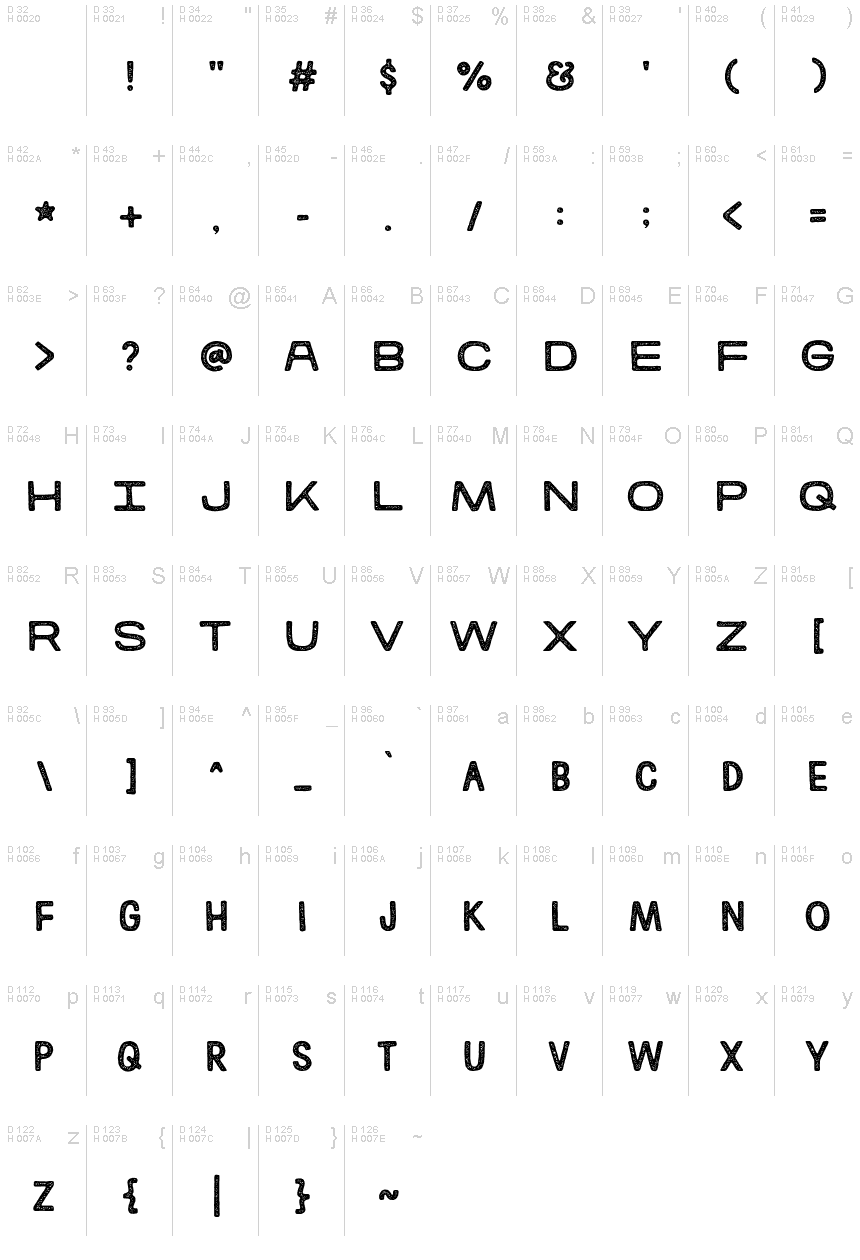
kitestrings stamp Regular
Kitestrings Stamp by Brittney Murphy Design is a display font that adds an edgy, eroded style to your designs. Its semi-bold weight brings a striking presence while its unique texture adds a vintage flair. Perfect for branding, packaging, posters or any design that needs to make an impact. This font works well for music festivals or concerts, outdoor events and independent businesses looking to stand out from the crowd. With Kitestrings Stamp, you can create eye-catching designs that leave a lasting impression on your audience.
Kitestrings Stamp is an eroded all-caps font with elongated uppercase letters so you can mix and match as you please to create text with that custom, variable width style.